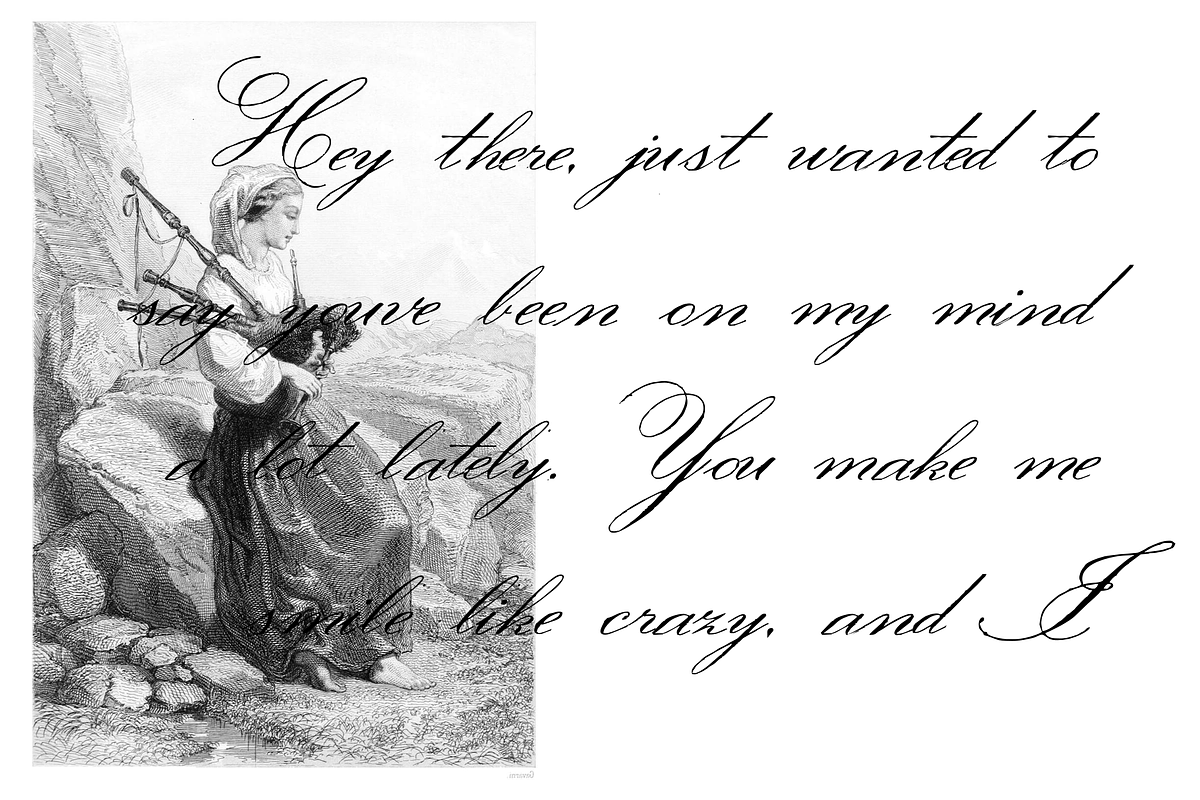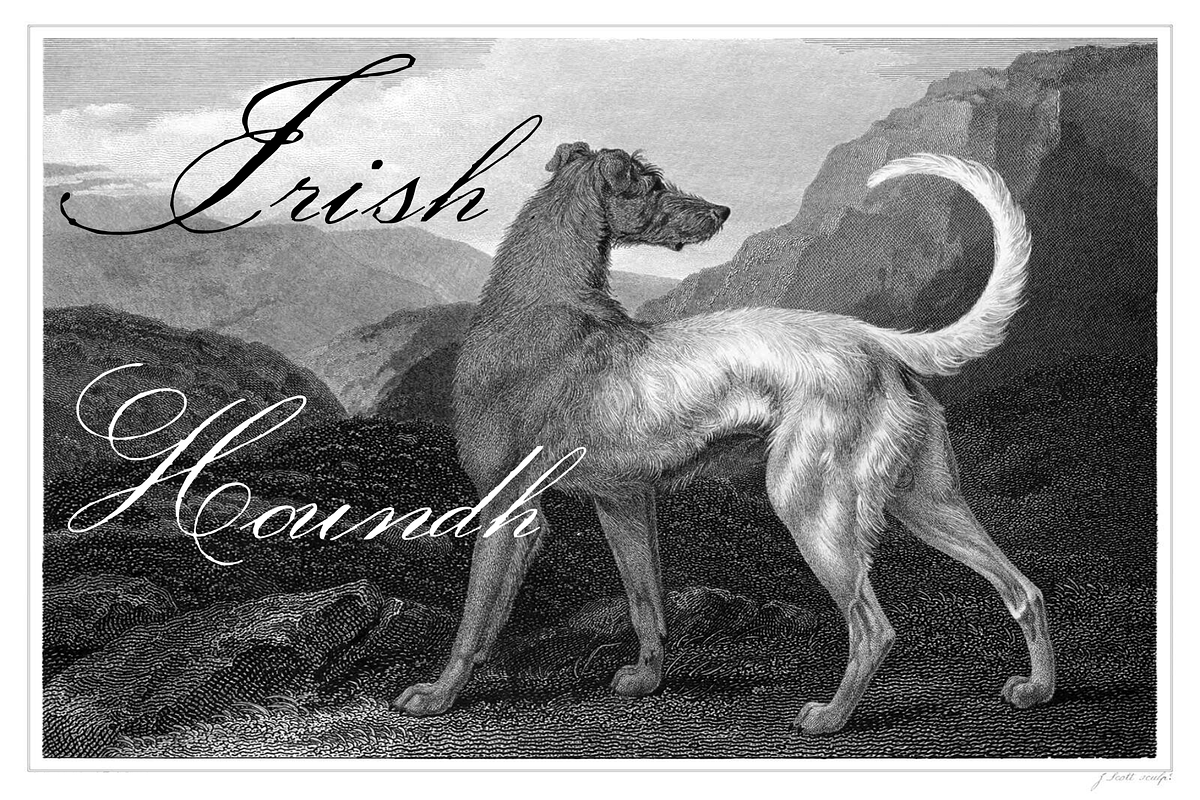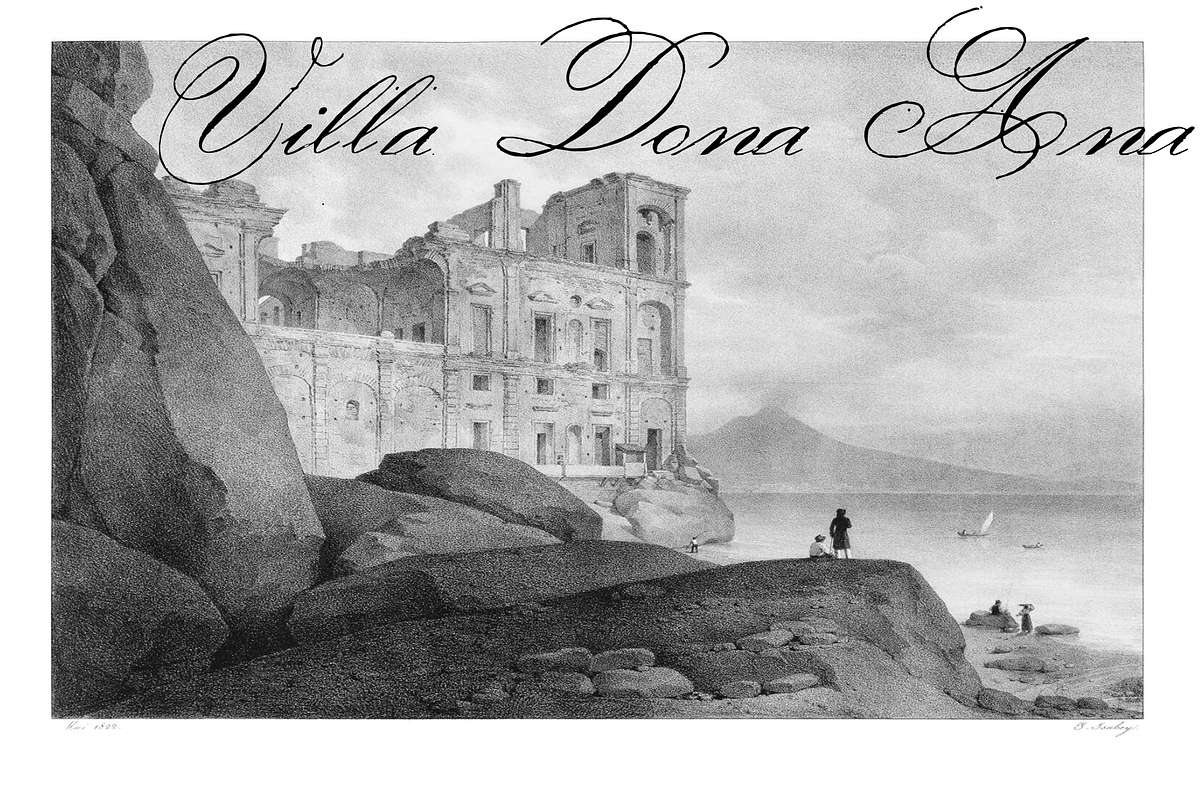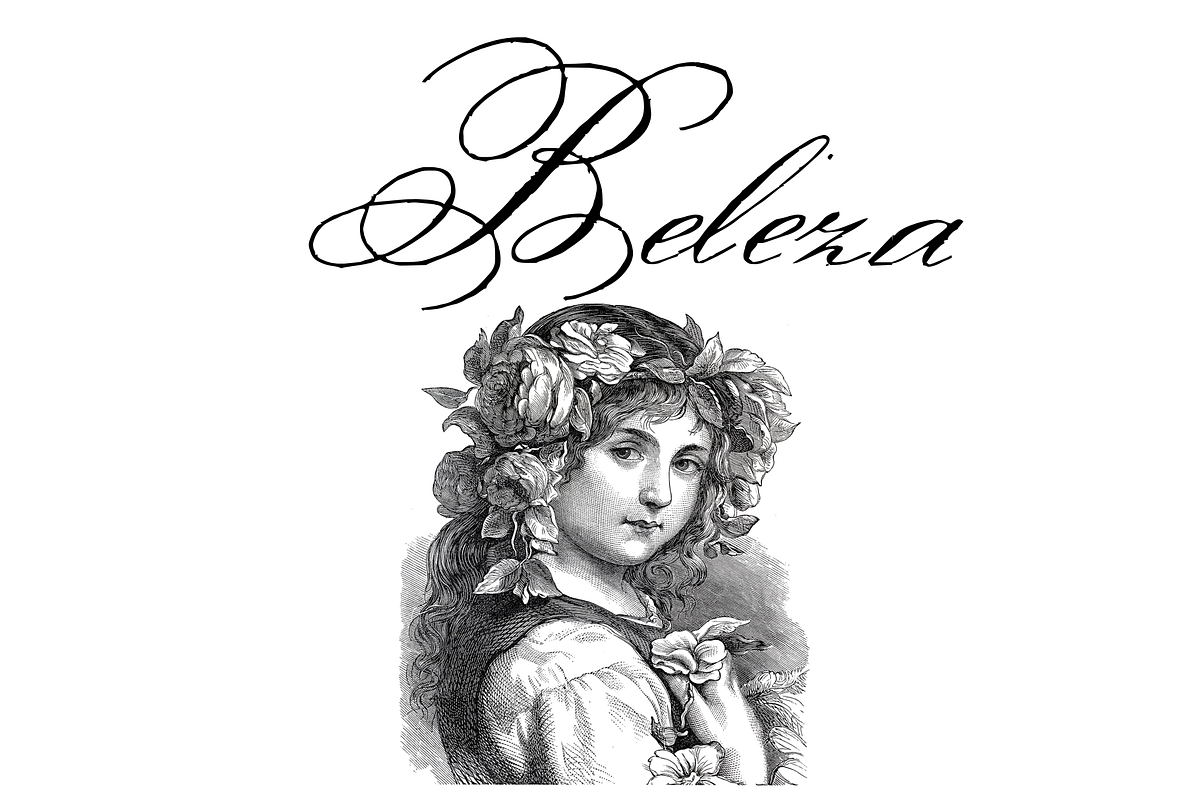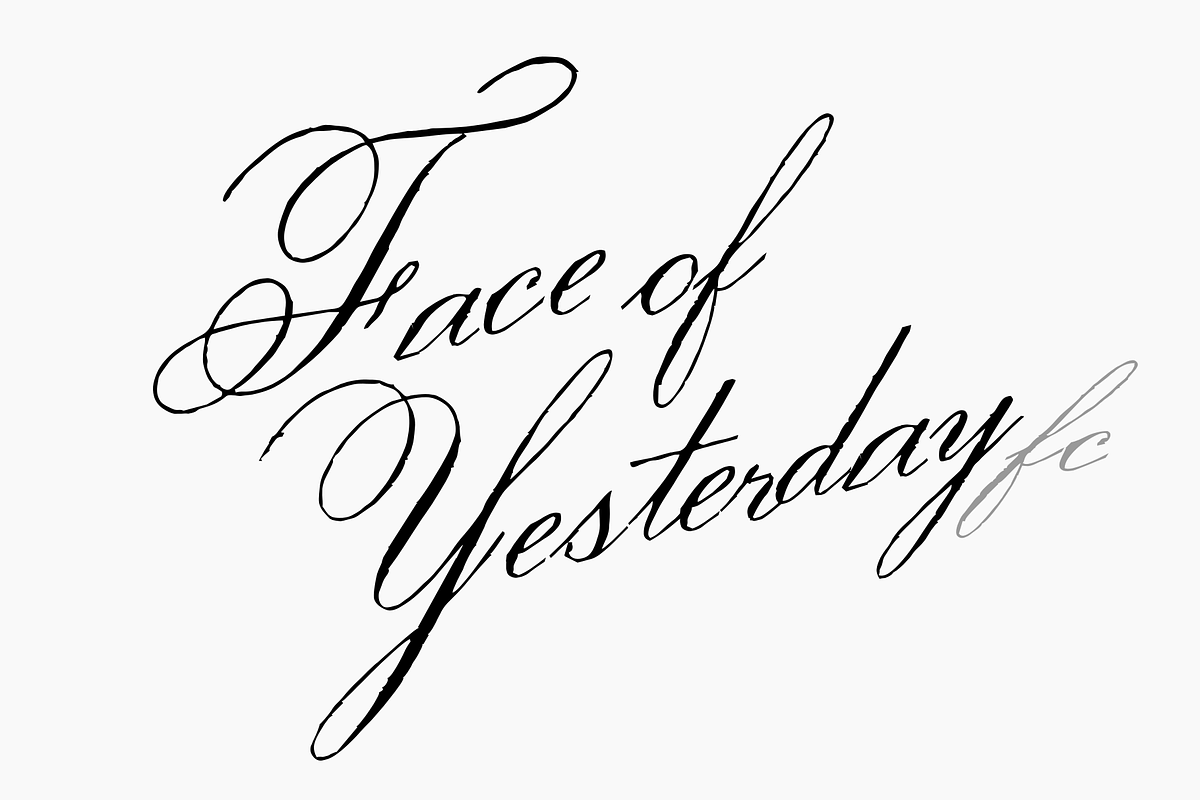
Face of Yesterday FC
Face of Yesterday is a beautiful, calligraphy font with tons of movement and style. This script looks anchored in yesteryear, and can add a classical appeal to your projects.